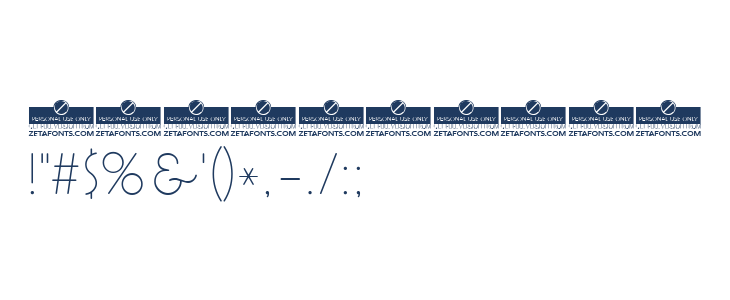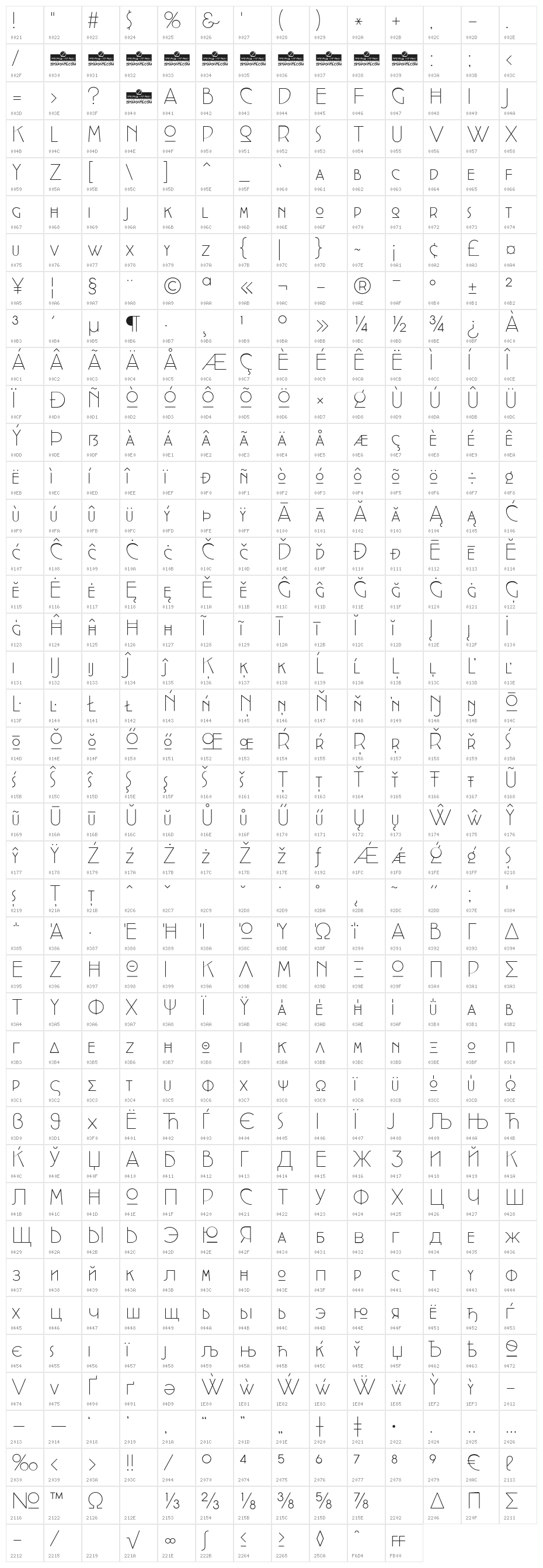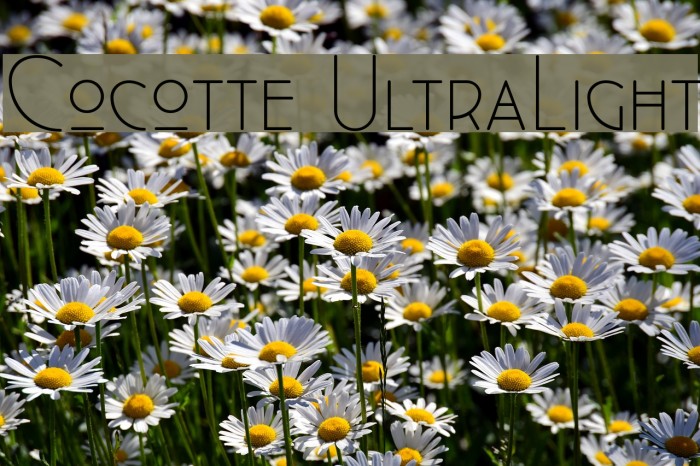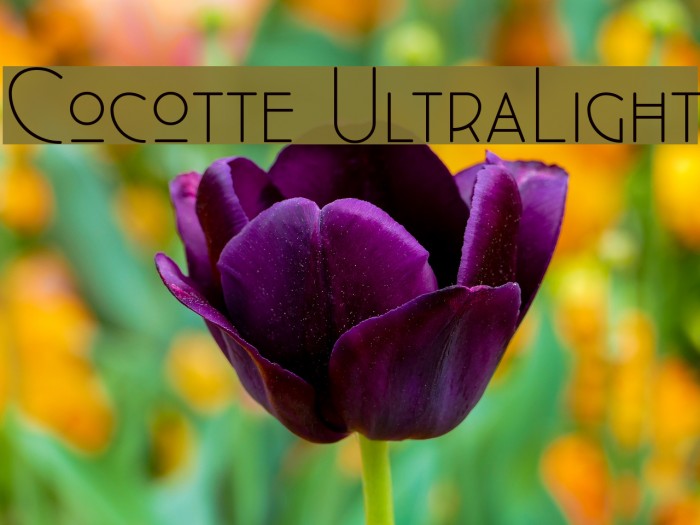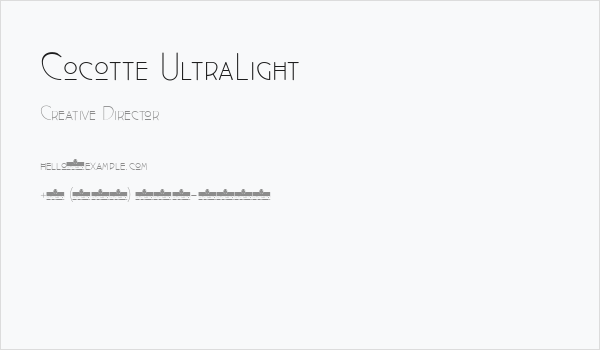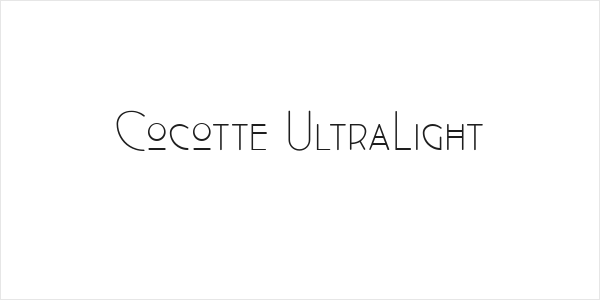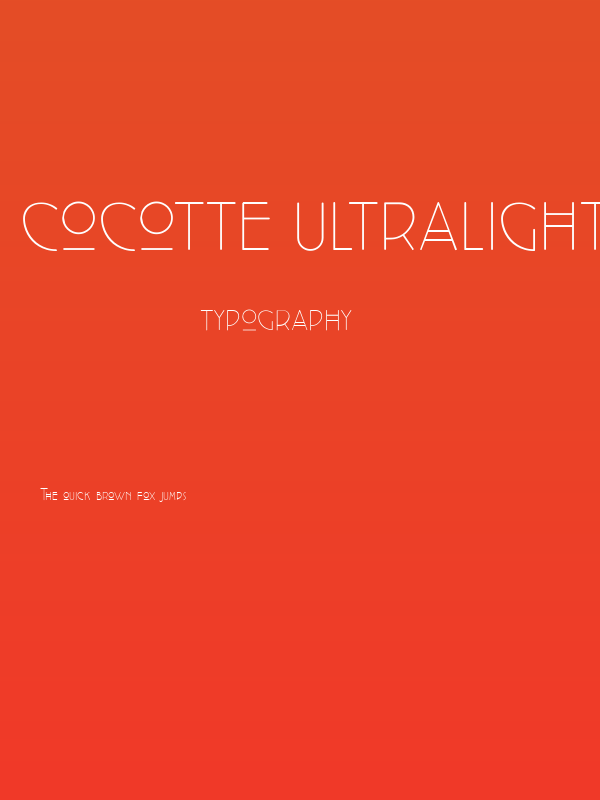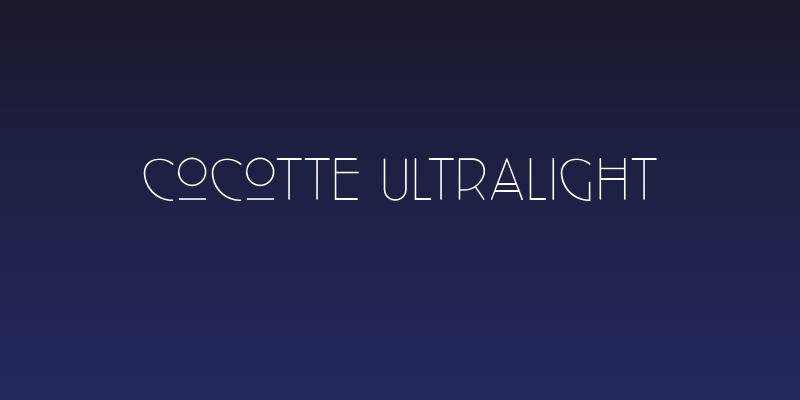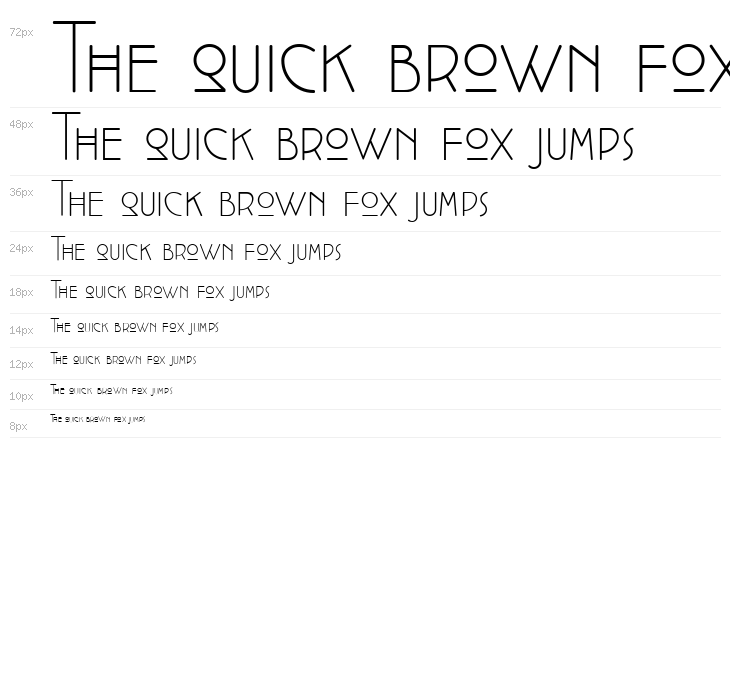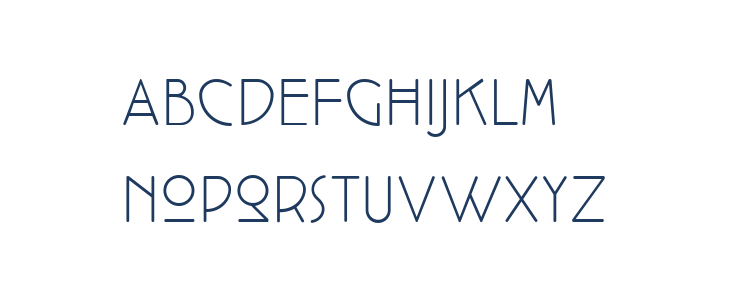
Cocotte UltraLight Font
Cocotte UltraLight Description
This font features a sleek, ultra-light design with a modern and geometric aesthetic. The characters are constructed with thin, consistent strokes that give it a clean and minimalist appearance. The uppercase letters are particularly striking with their sharp angles and straight lines, while the lowercase letters maintain a harmonious balance with slightly rounded edges. The numerals and special characters follow the same design principles, ensuring a cohesive look across all glyphs. This font's simplicity and elegance make it versatile for various design applications.